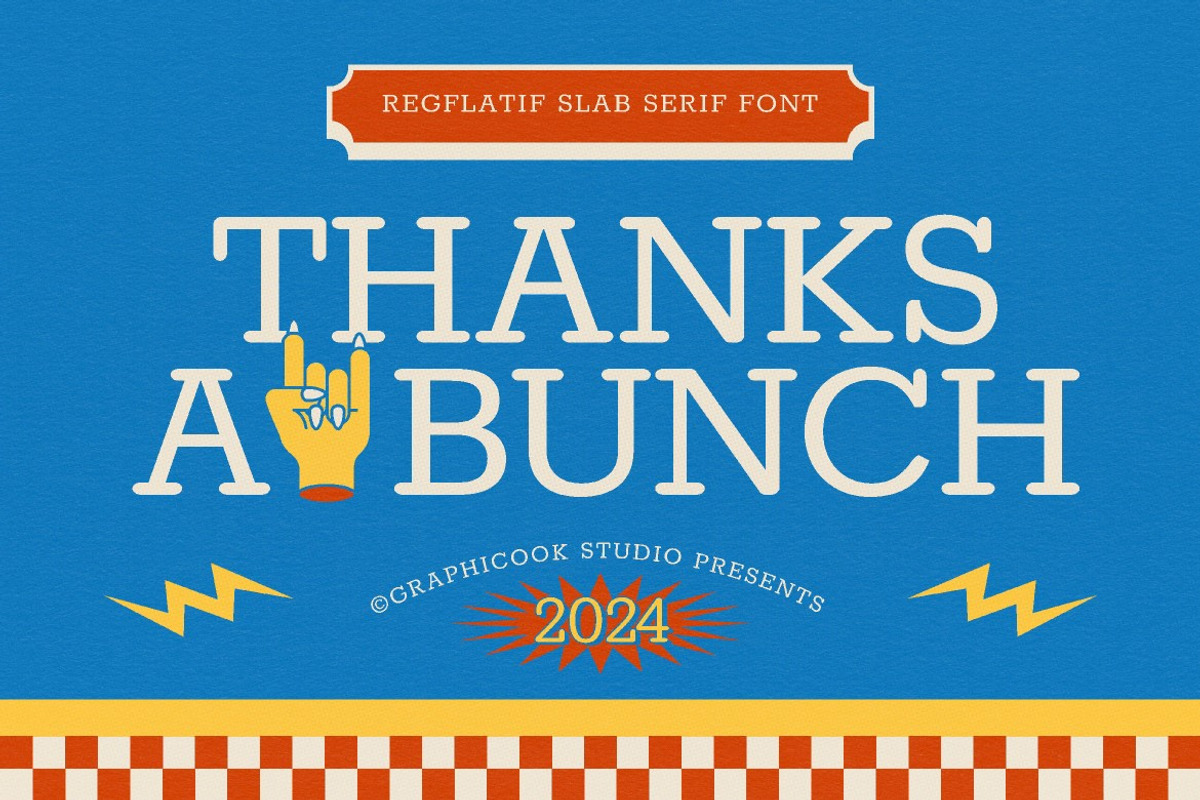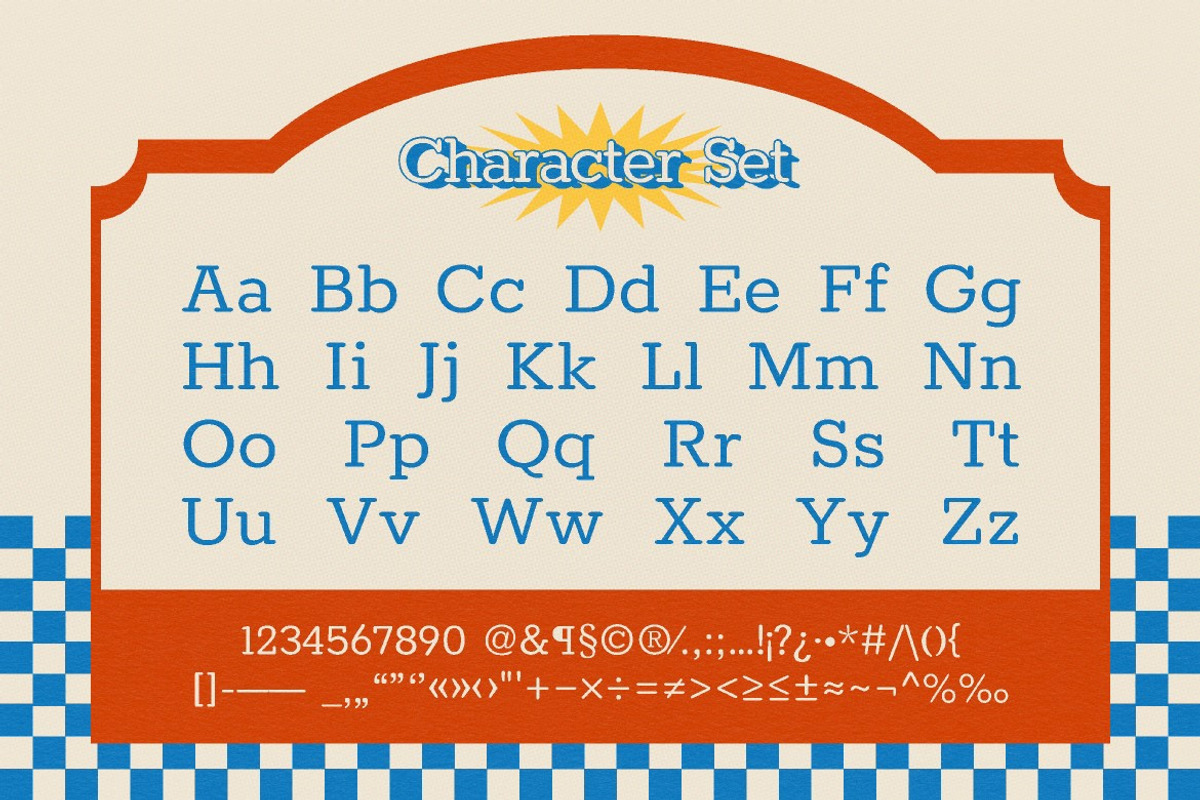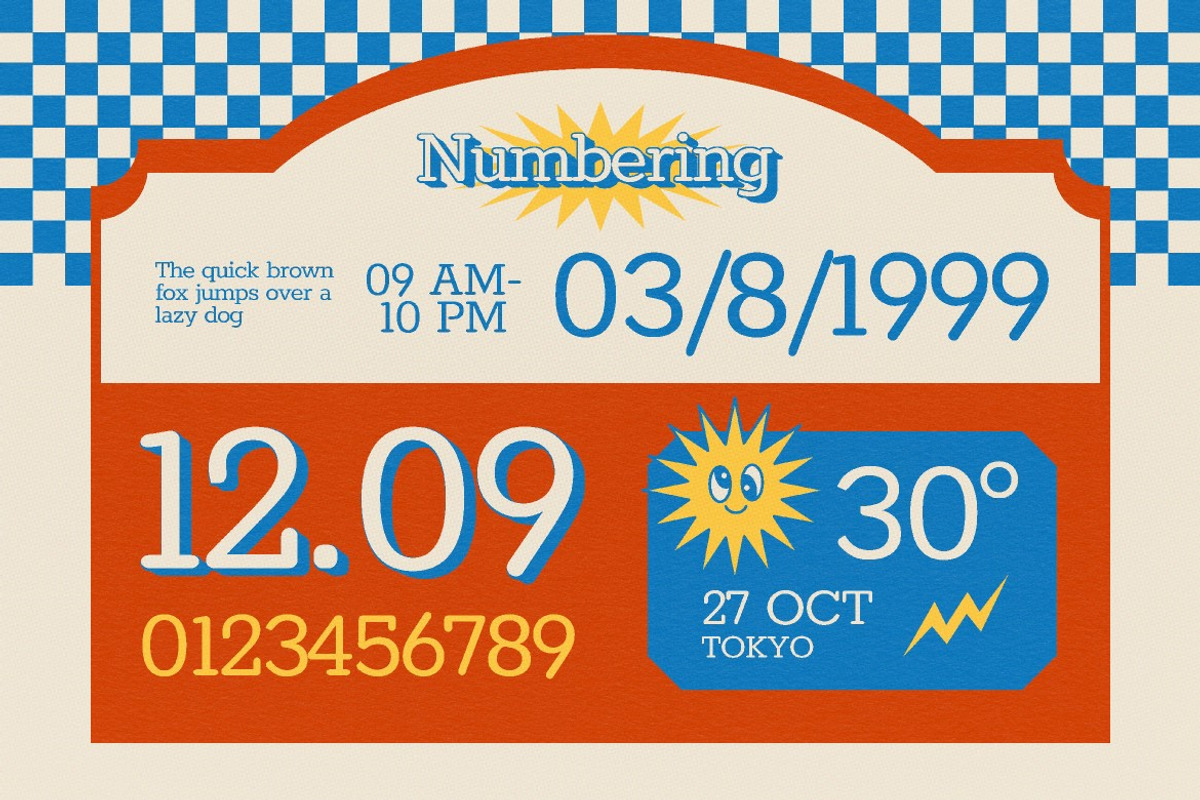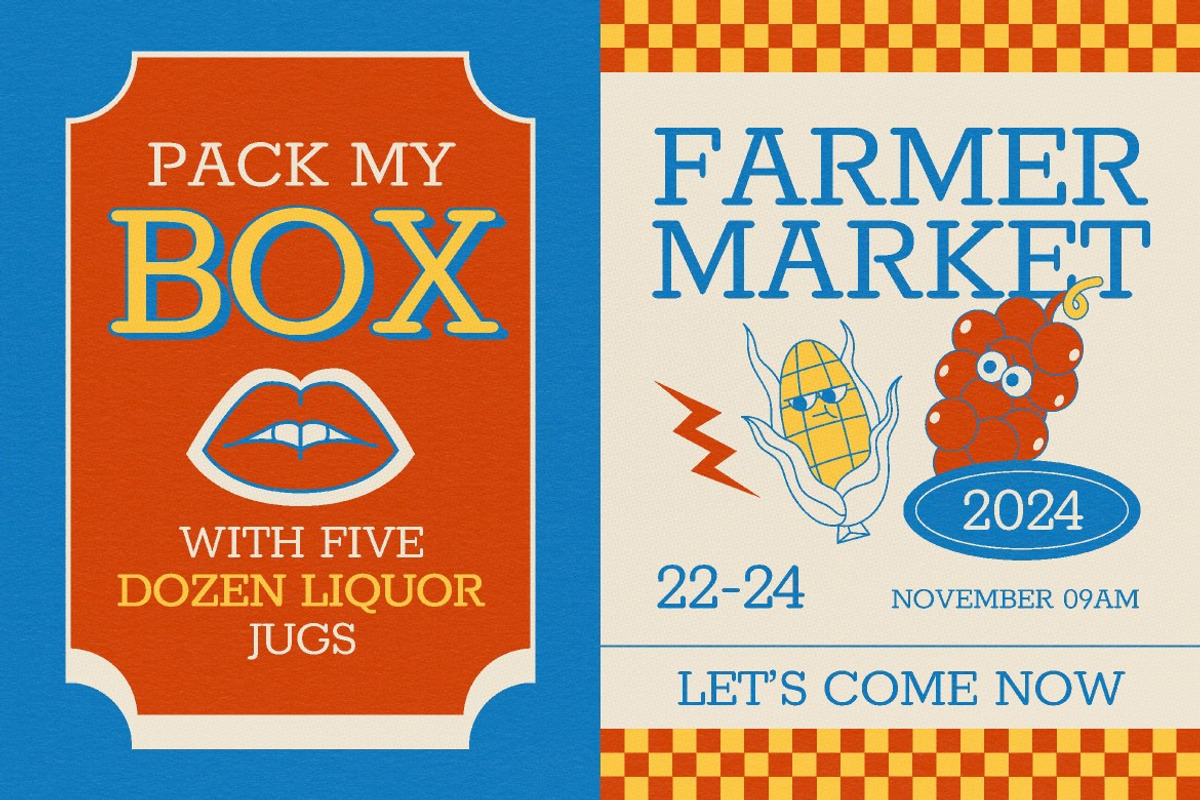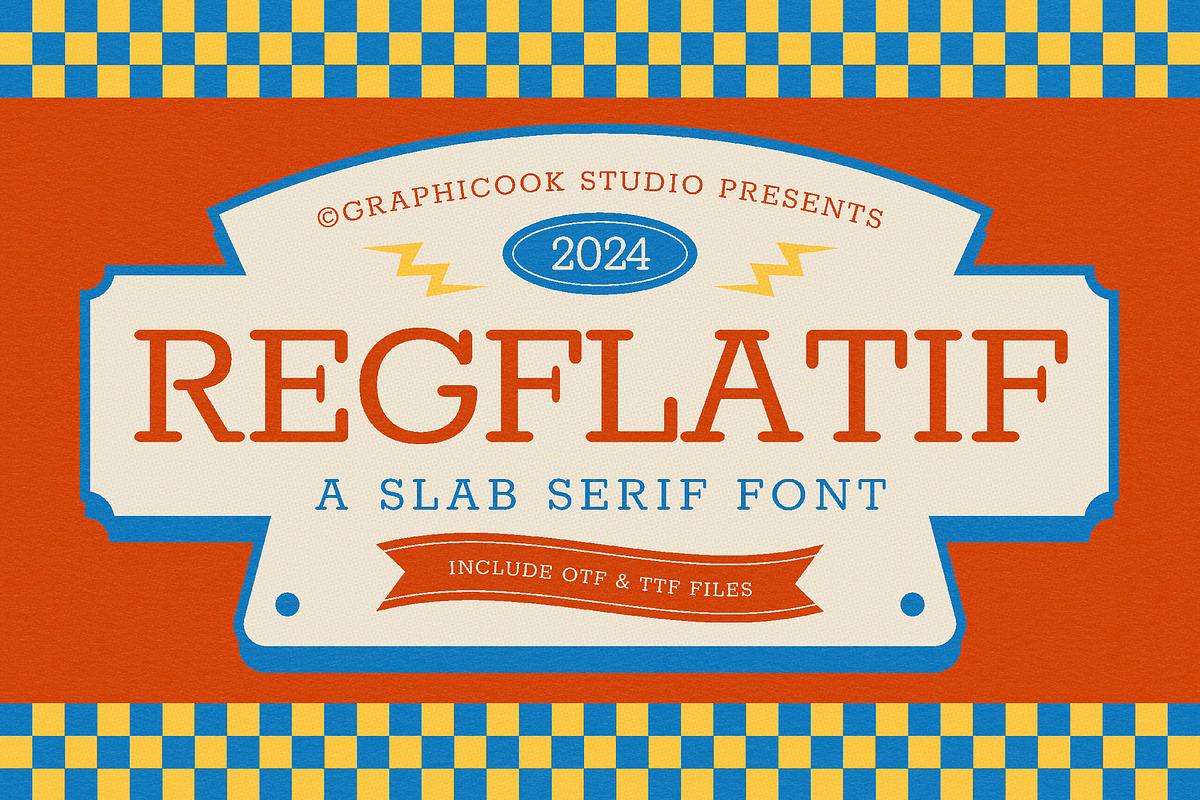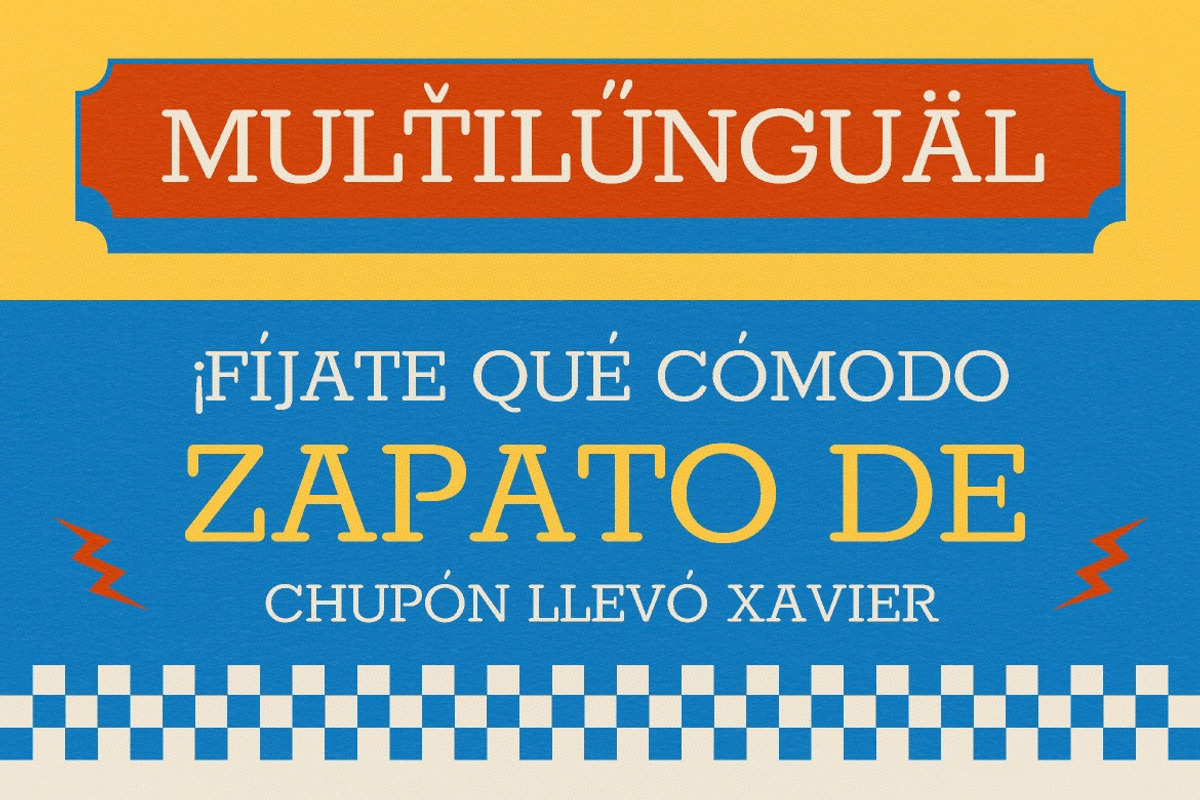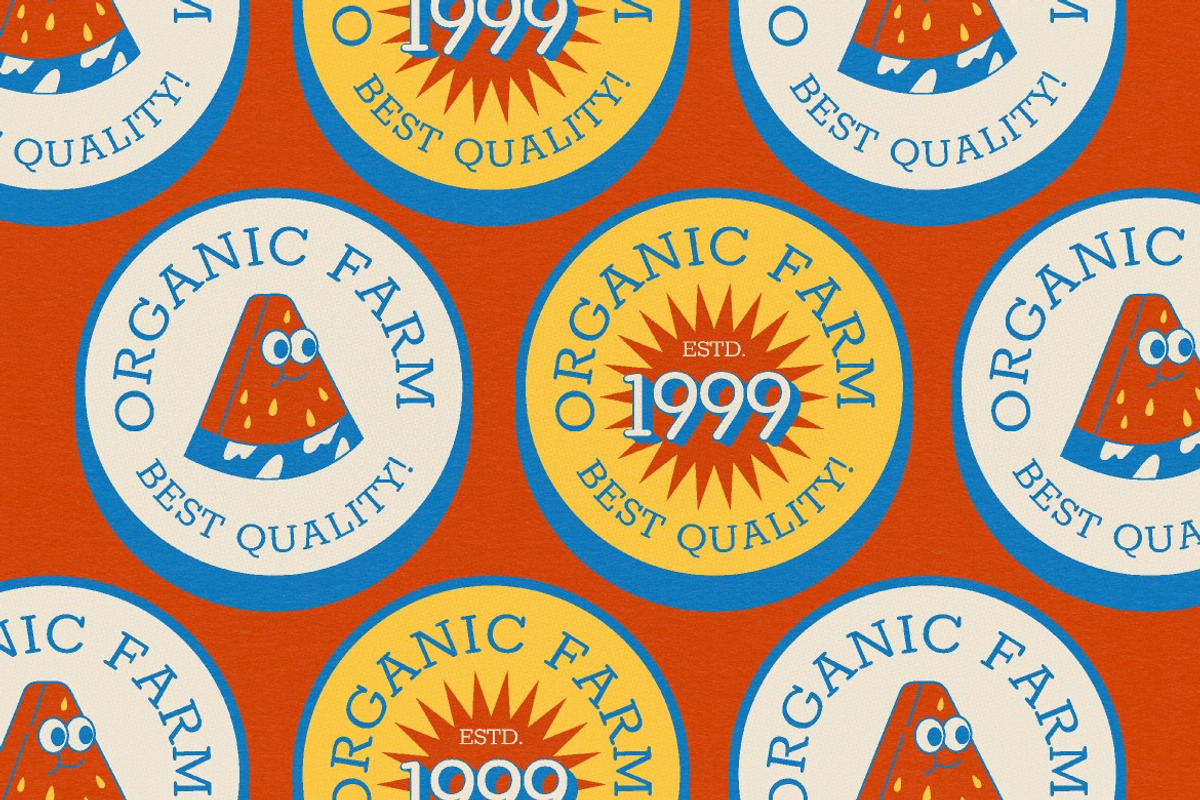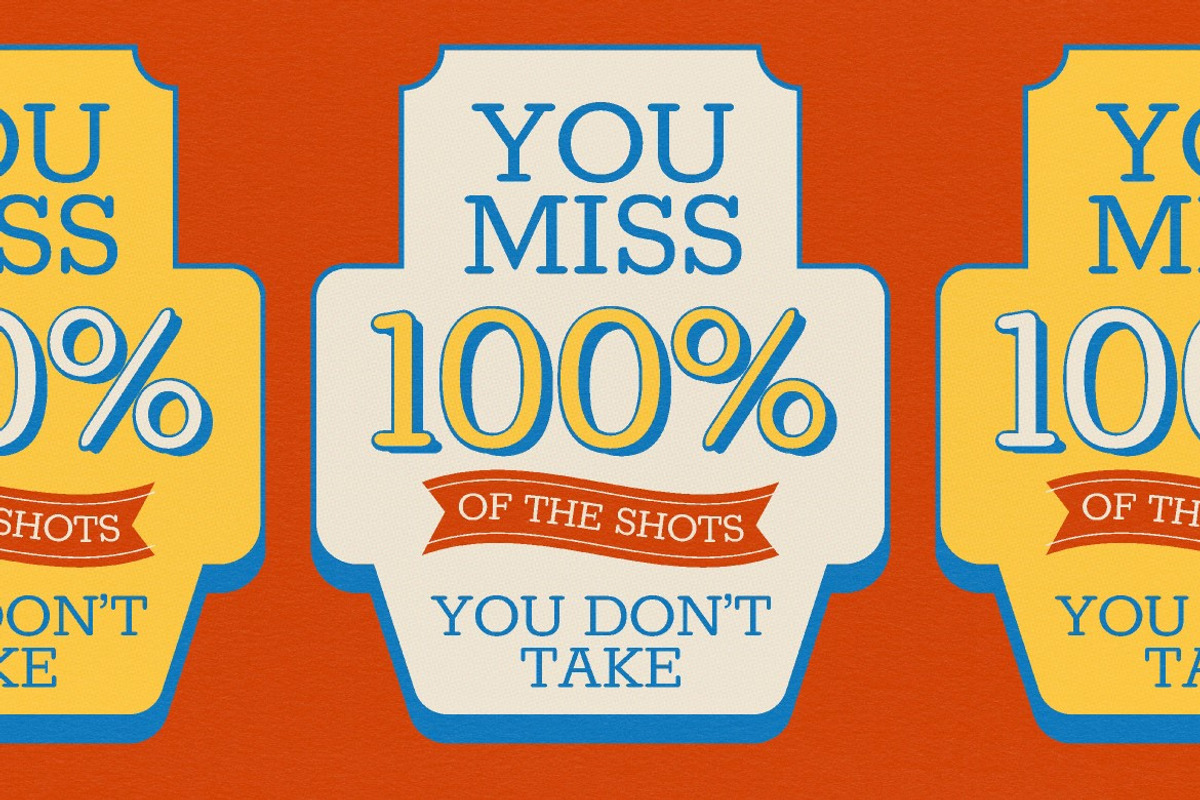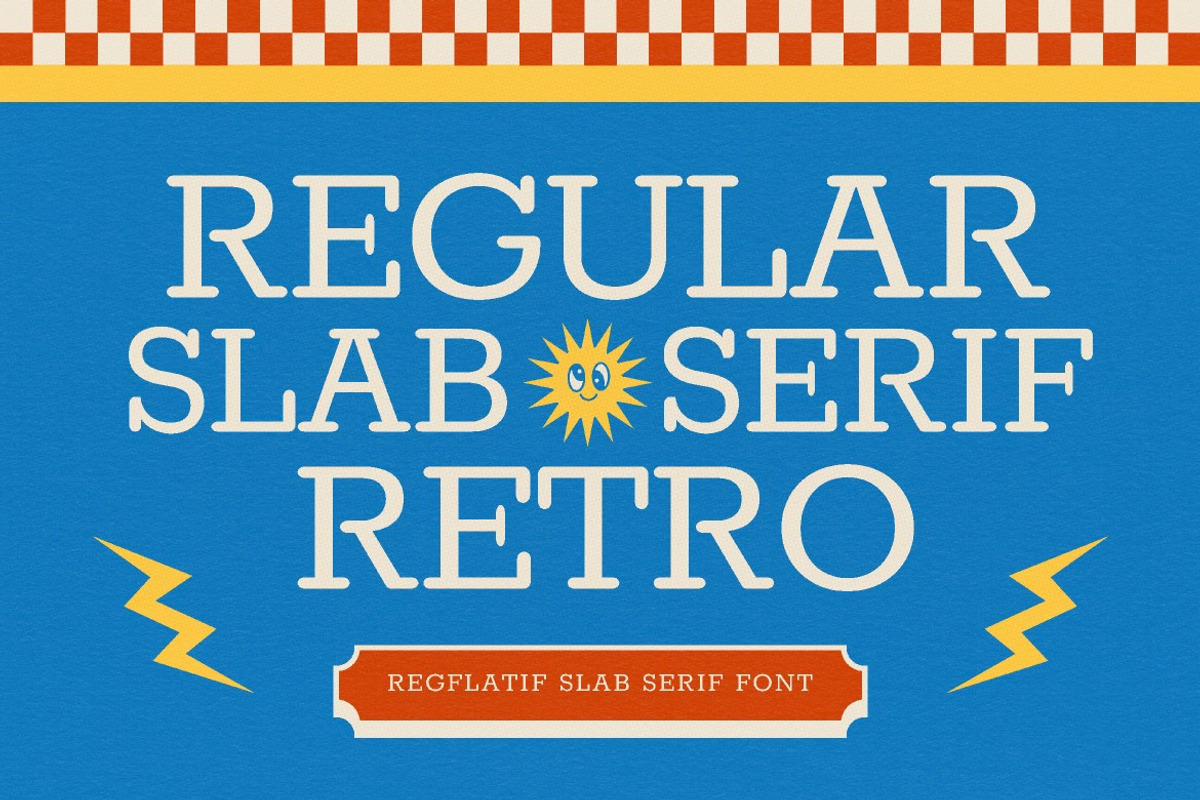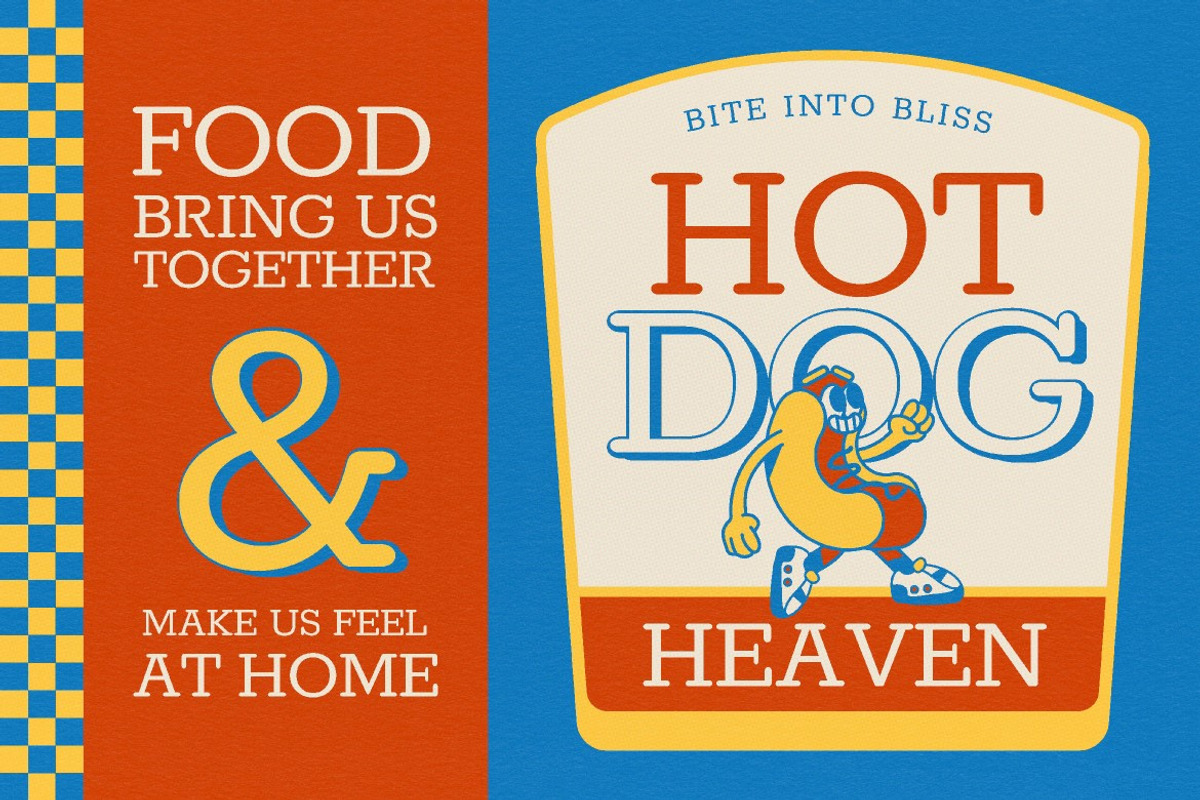
Regflatif
Regflatif is a slab serif font with a bold retro charm. Its versatility makes it a great choice for any design project.
Regflatif is perfect for headlines, logotypes, magazines, packaging, quotes, movies, games, cover albums, book covers, and flyers, it's a perfect solution for creating eye-catching designs that stand out in any context.